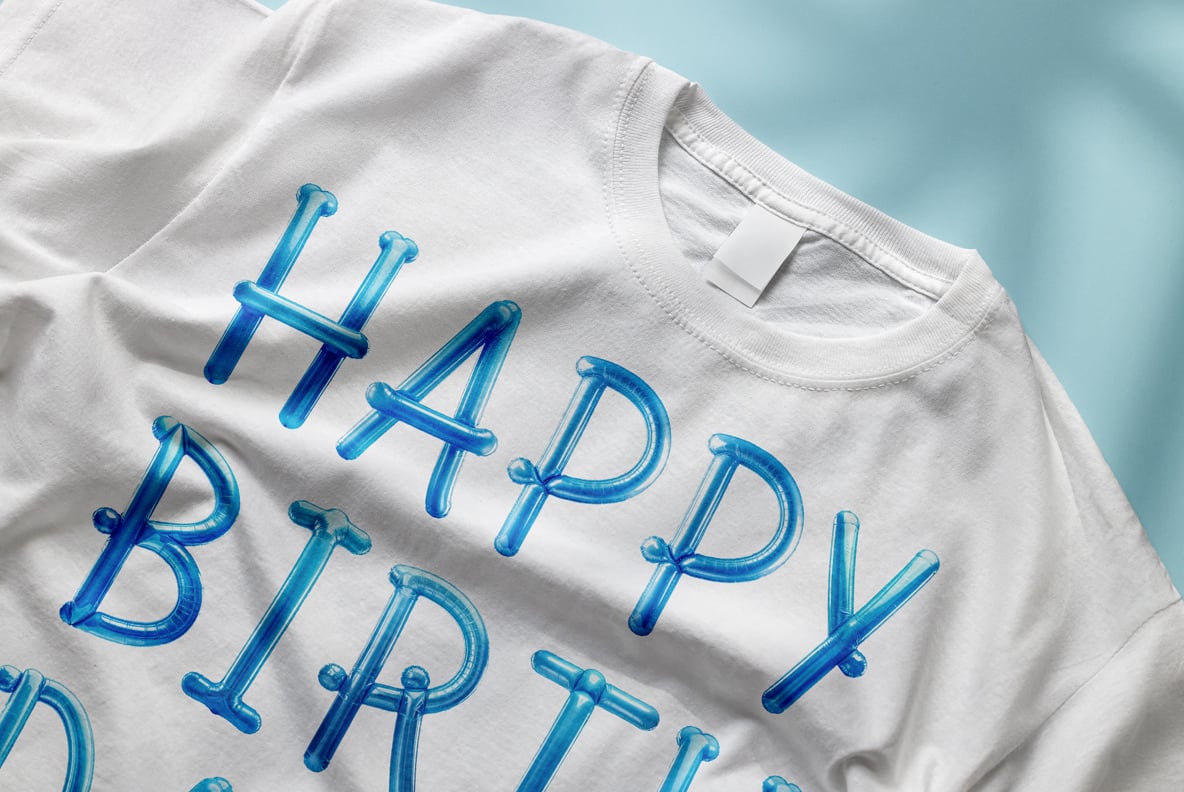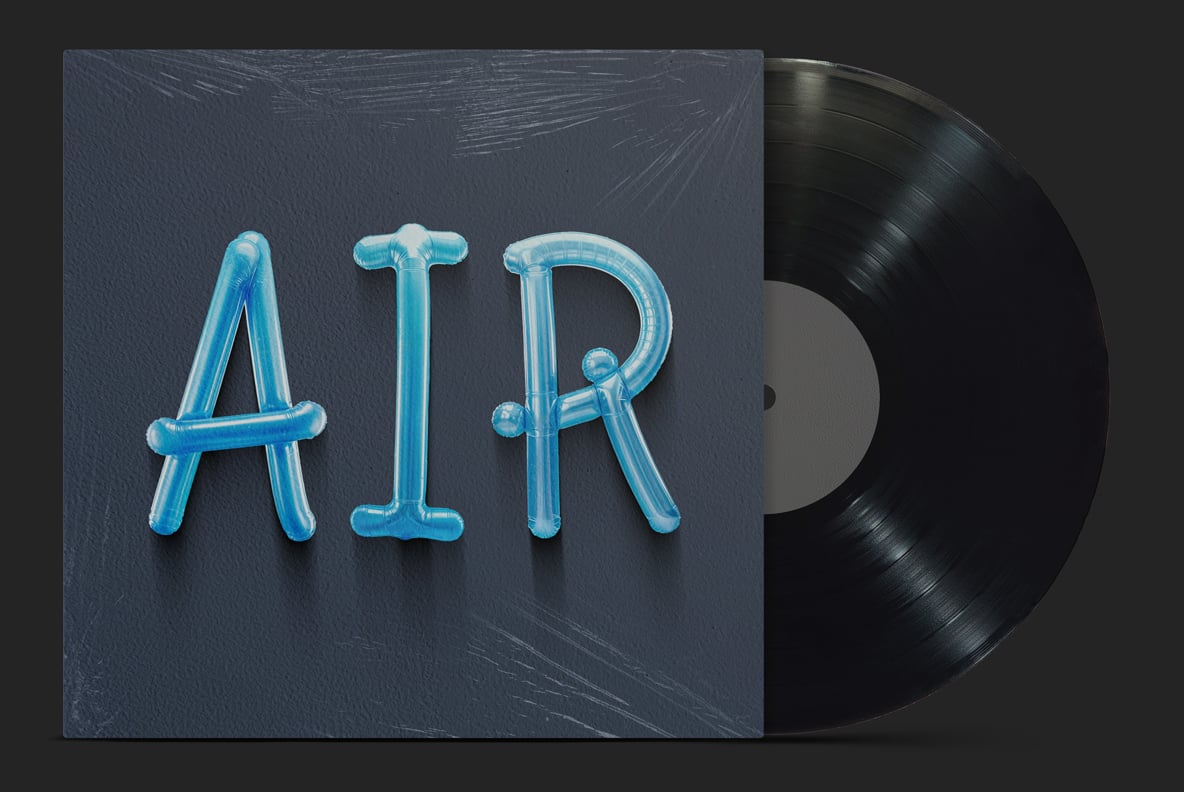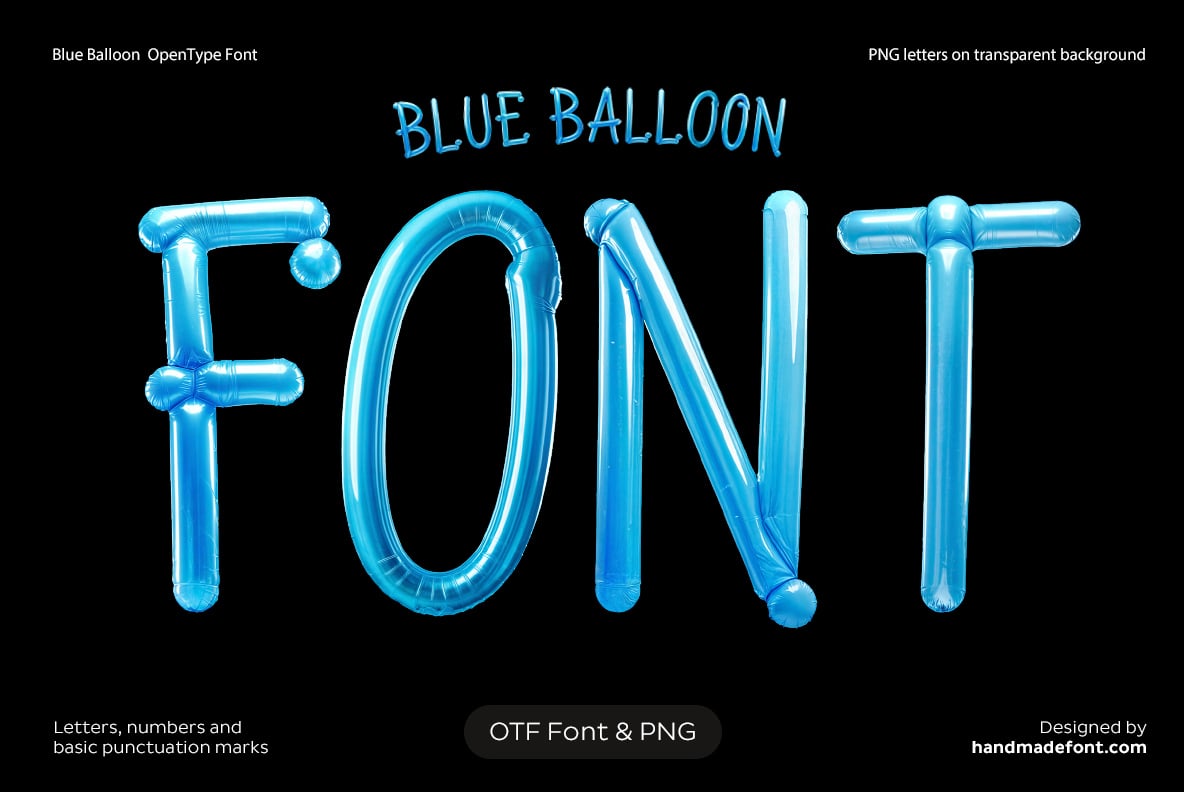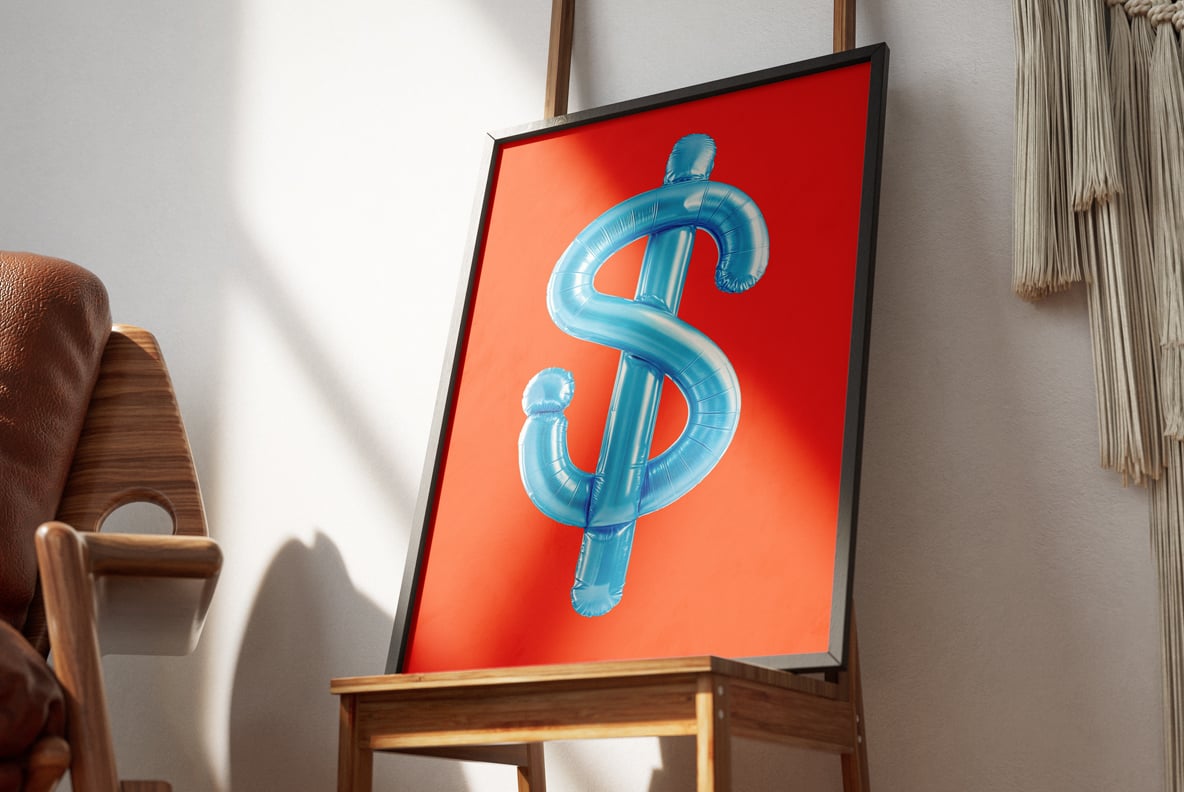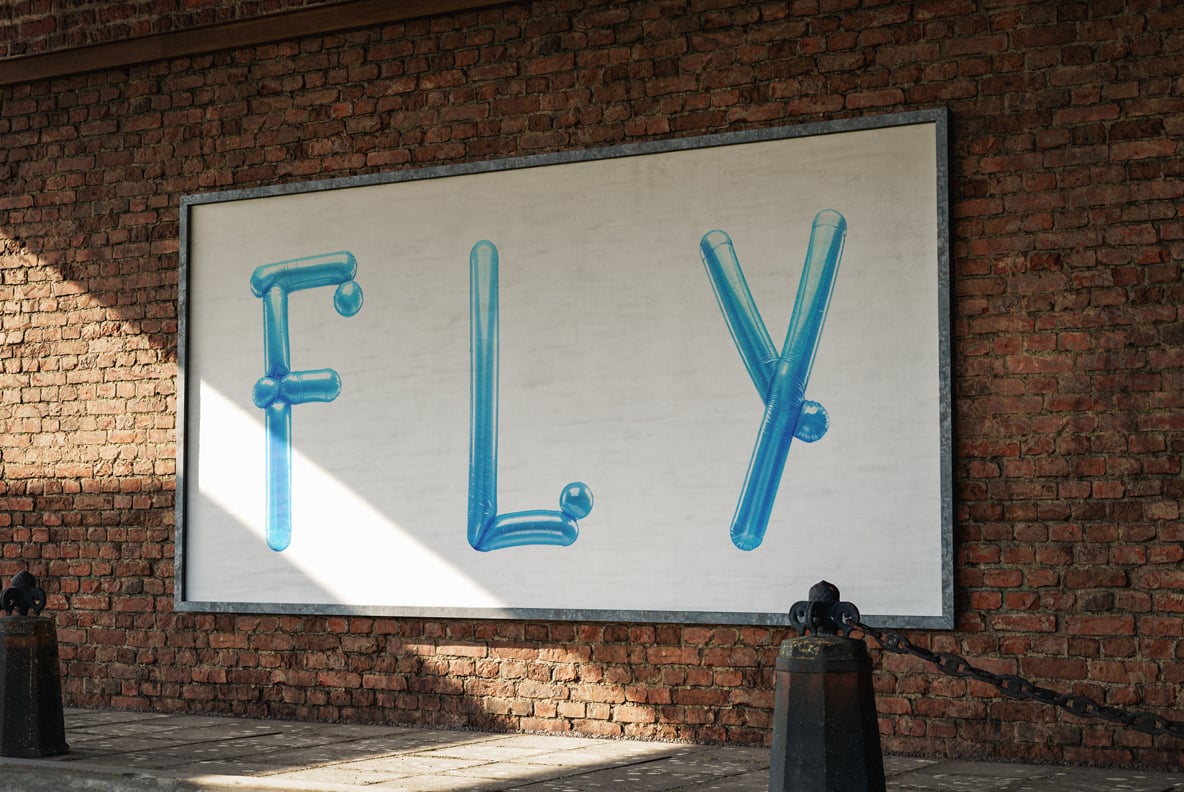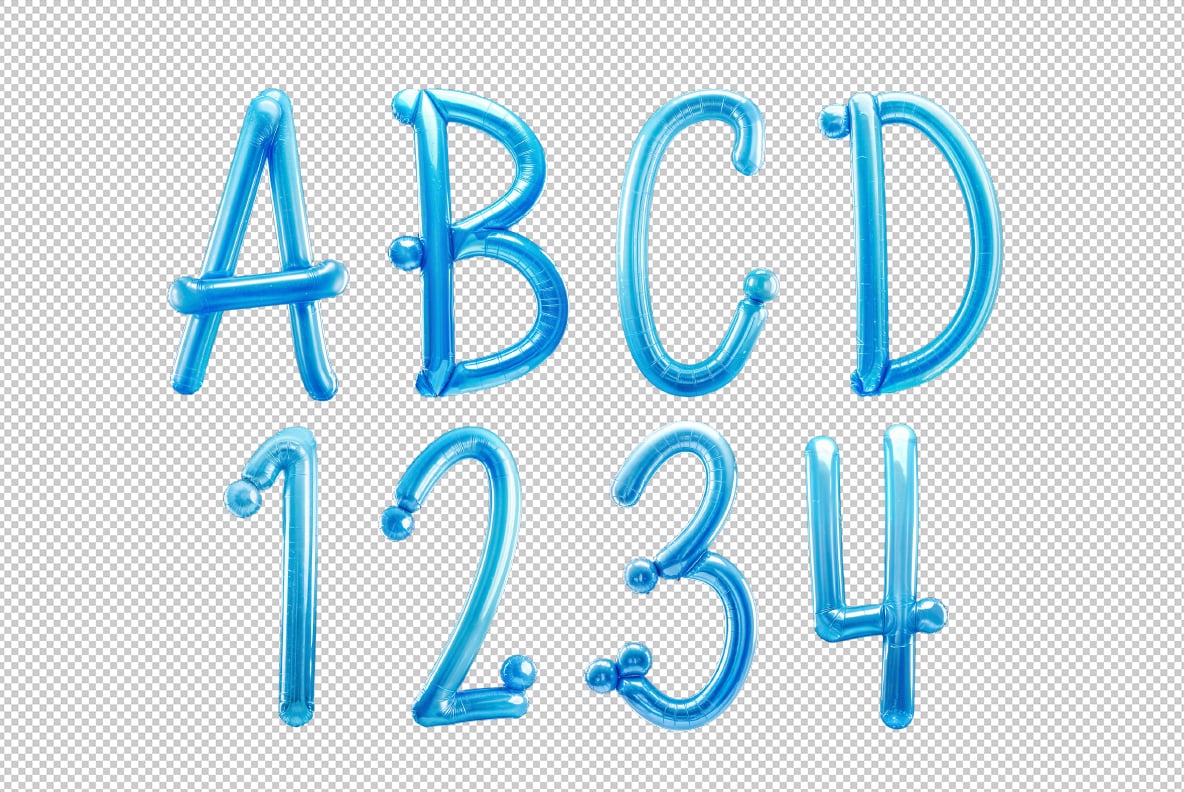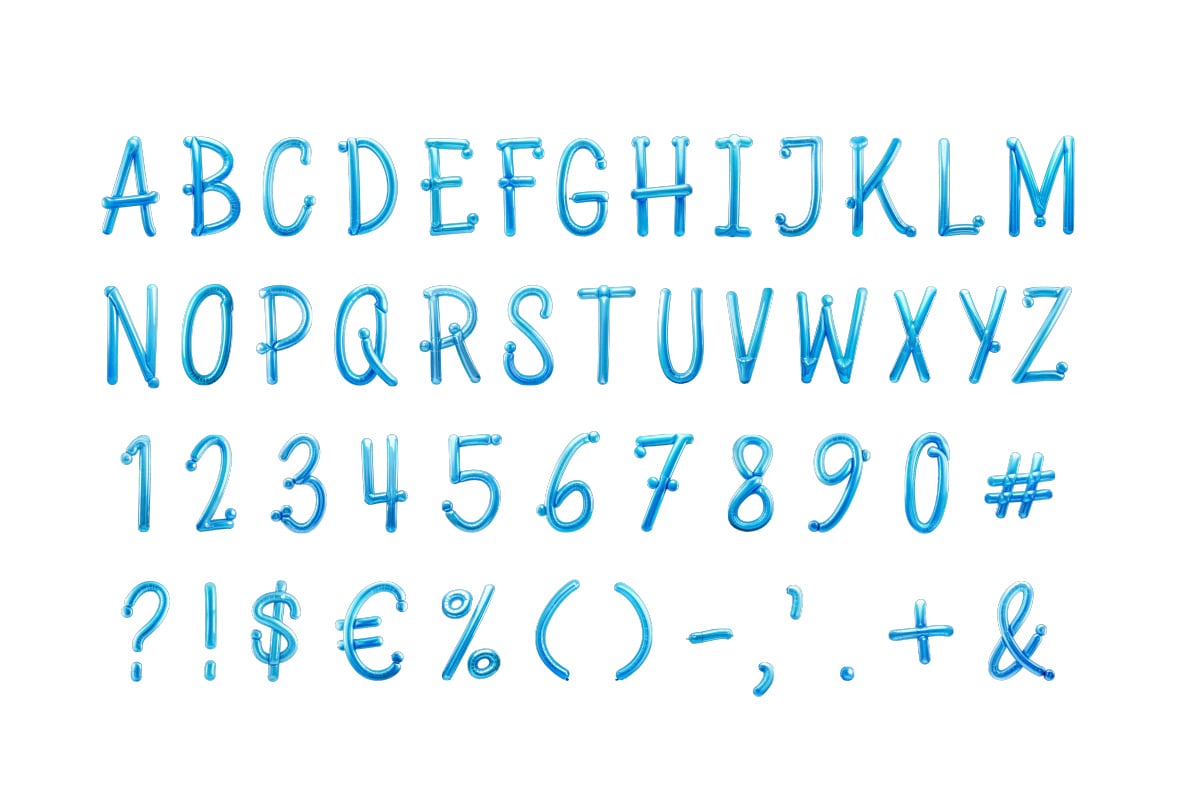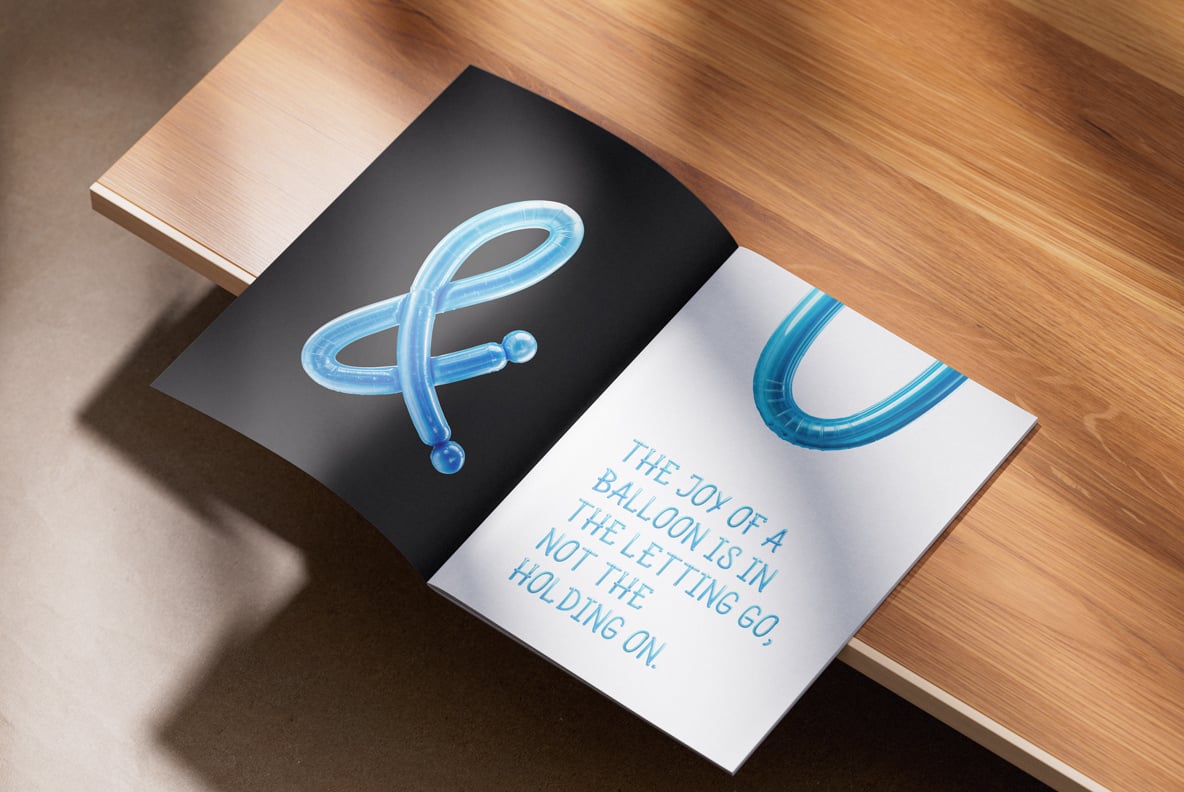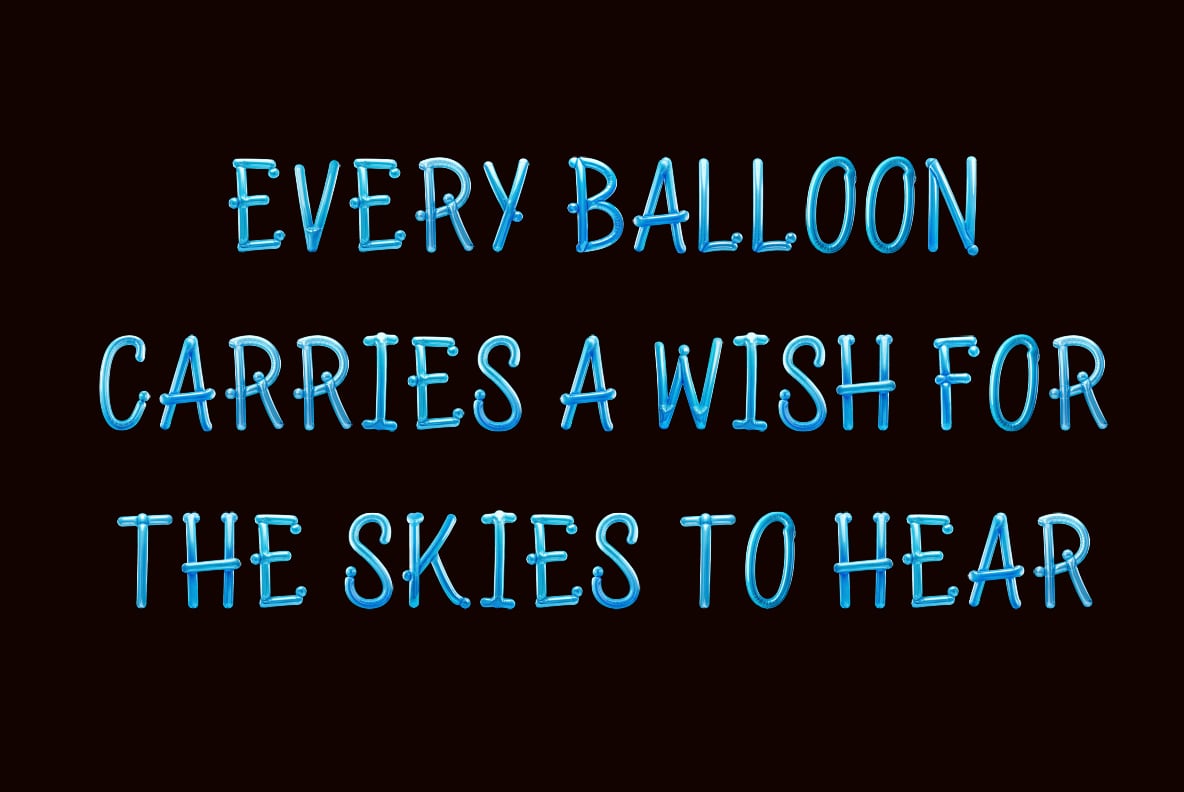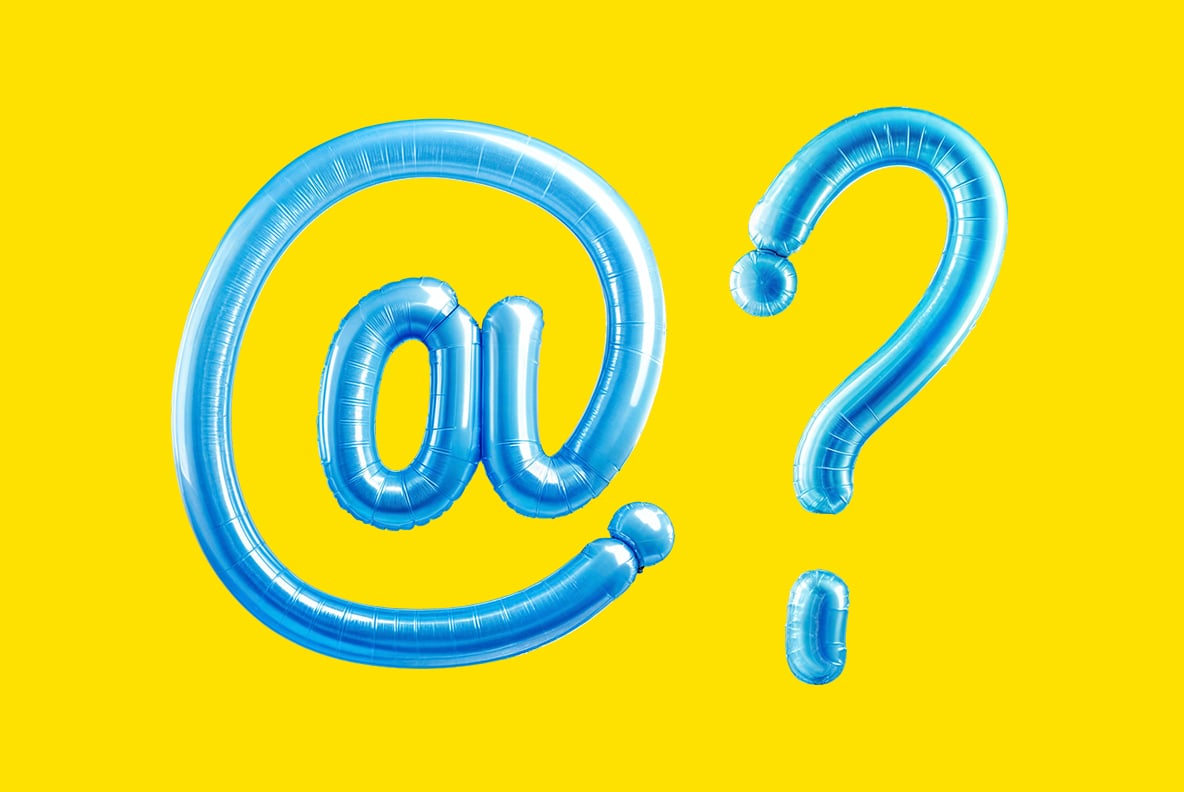
Blue Balloon Font
Party vibes come alive with the Blue Balloon Font, a playful and eye-catching balloon-inspired typography. Each letter is meticulously crafted from inflated blue balloons, twisted into perfect shapes that radiate creativity. The glossy surface of the balloon alphabet reflects light, adding a touch of sparkle and festivity to any design. This balloon lettering exudes charm and fun, making it ideal for celebrations, invitations, and decorations. The Blue Balloon Font brings a whimsical flair to your text, combining vibrant color and festive design to create unforgettable impressions. Perfect for party themes or joyful occasions, this balloon typography is pure delight!